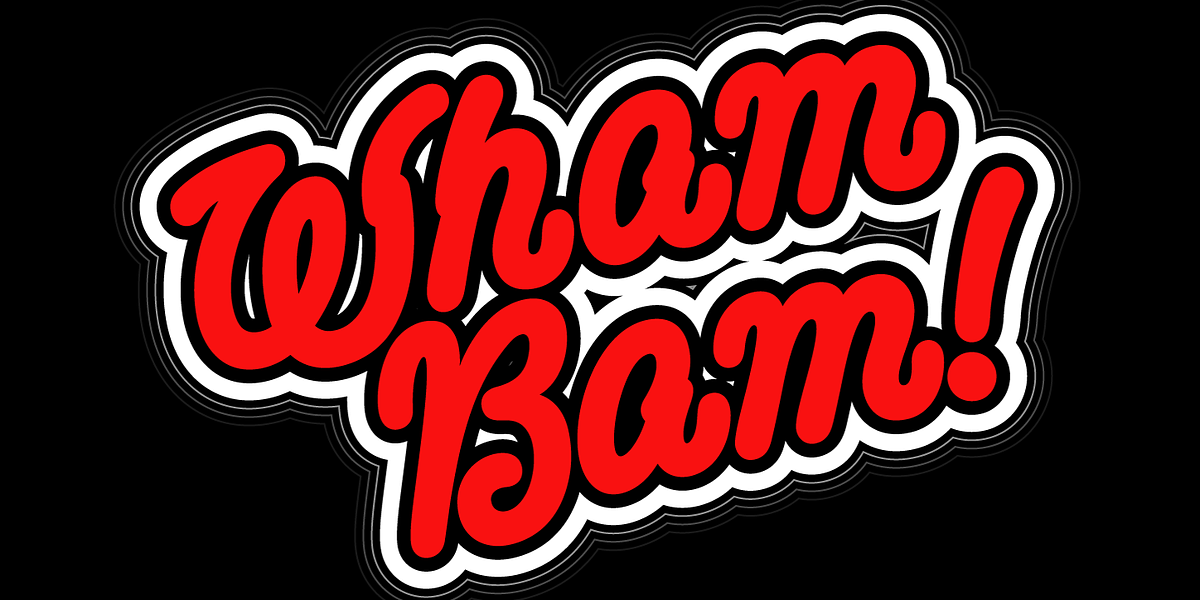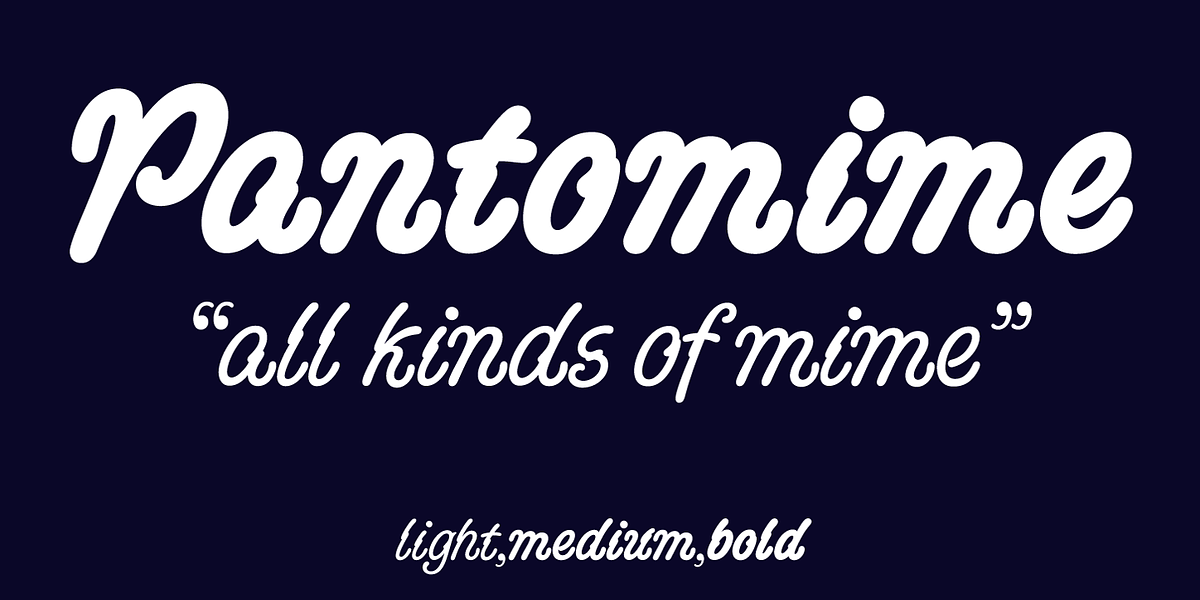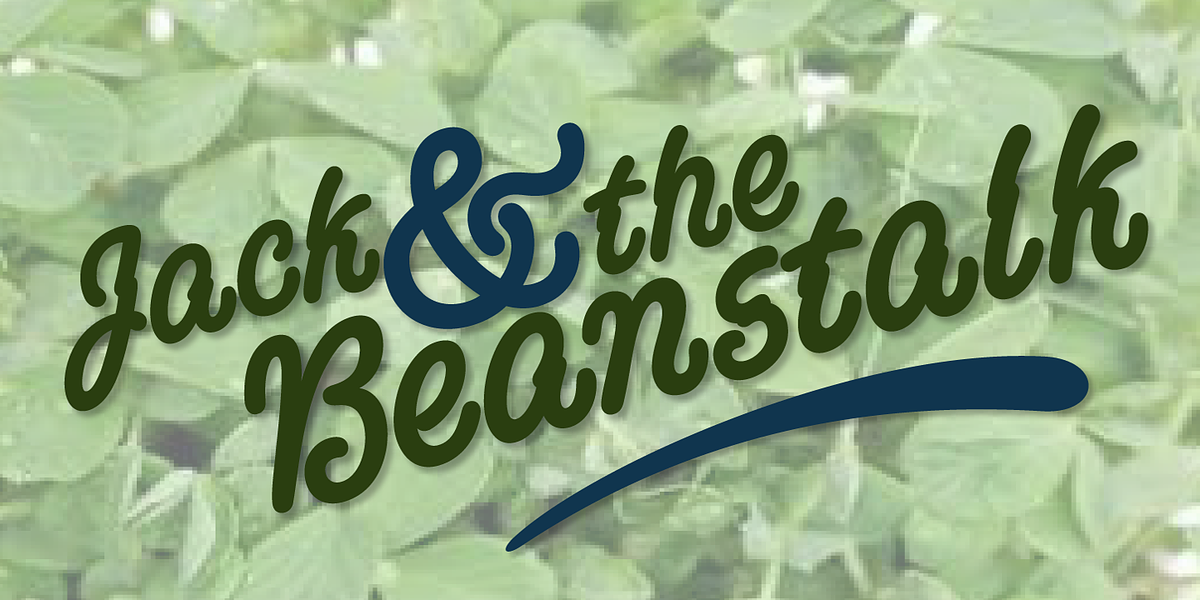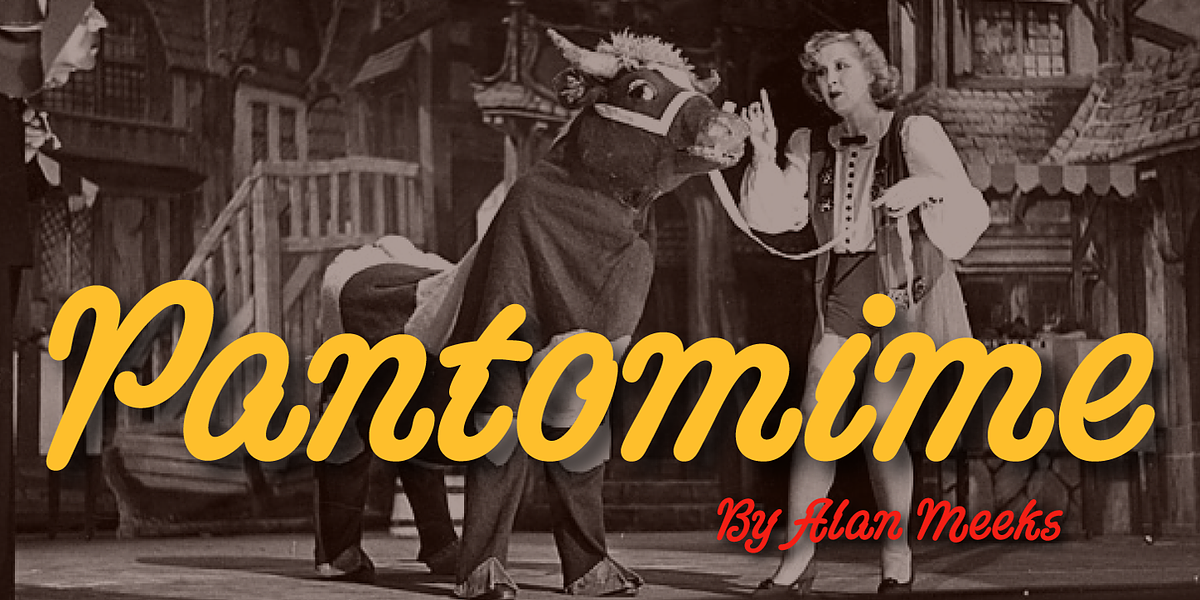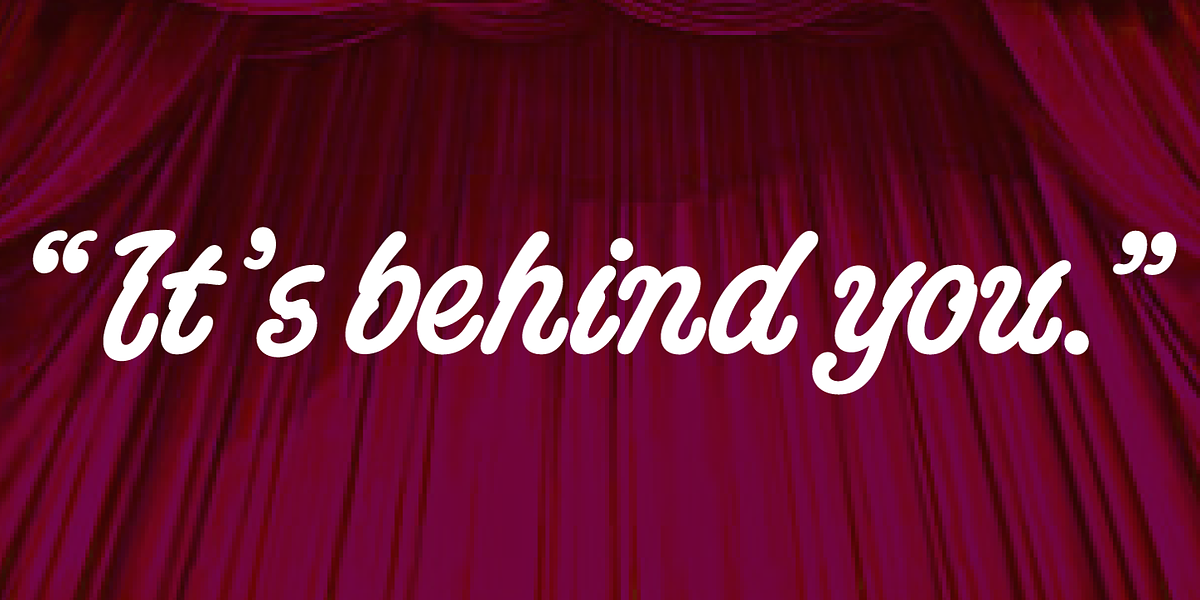
Pantomime
Pantomime is a script font intended for use in headlines and at larger sizes. Its design features tight spacing to create visually interesting word patterns.